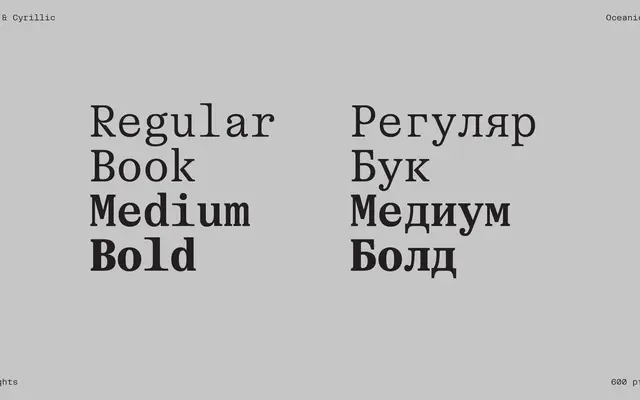
Oceanic Text Mono specimen from Interval Type
A fixed-width serif in four weights, drawing its contrast and idiosyncratic details from 18th and 19th-century fat faces such as Bodoni and Scotch Roman.
Part of the broader Oceanic family, the Mono variant carries over the upright contrast and quirky detailing of the Display and Text cuts into a fixed-width structure suited to coding, tabular data and technical documents. Characters like the 'c' and 'e' retain their creature-like open terminals, and the capital 'R' and 'K' are deliberately conspicuous, lending personality to an otherwise functional format. Four weights from Regular to Bold cover Extended Latin and Cyrillic.
A fixed-width typeface with upright contrast derived from 18th and 19th-century fat faces such as Bodoni and Scotch Roman, placing it firmly in the monospaced category with strong serif heritage.